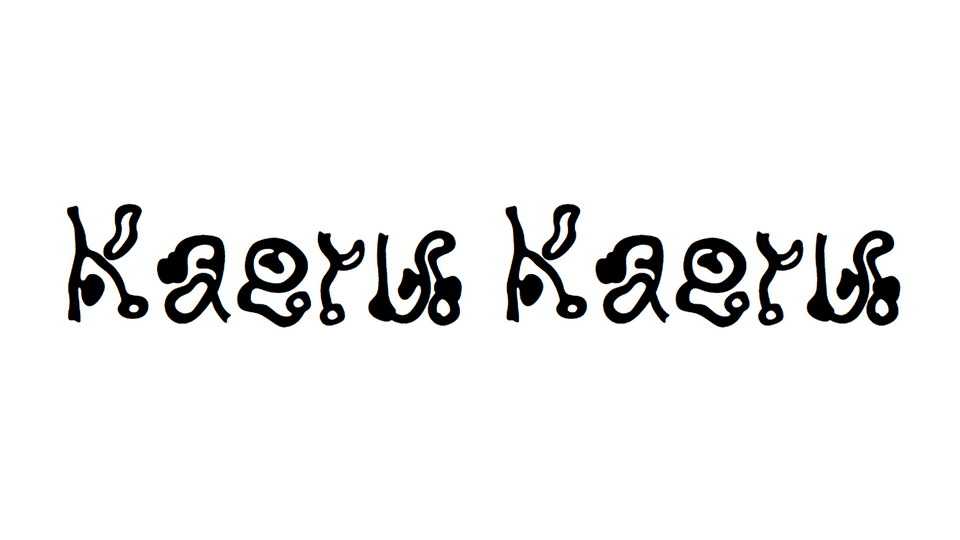
Download Kaeru Kaeru font, a fancy typeface that combines bright colored and blobby shaped patterns of the poison dart frog mixed together with the strangely formed muscles in Japanese woodcuts.
Designer: Velvetyne TF